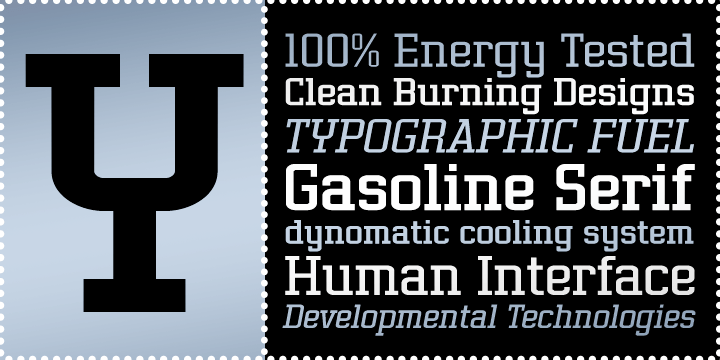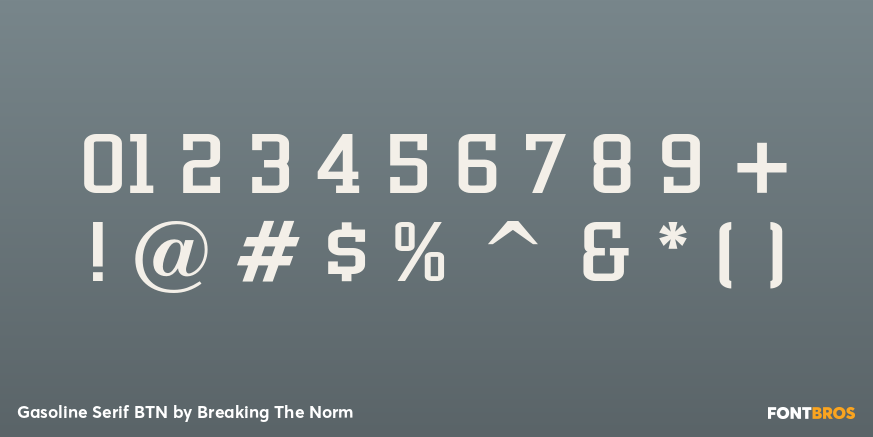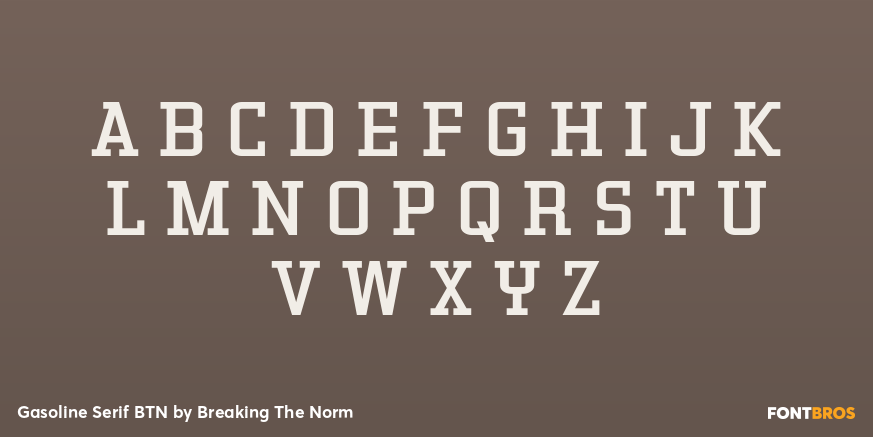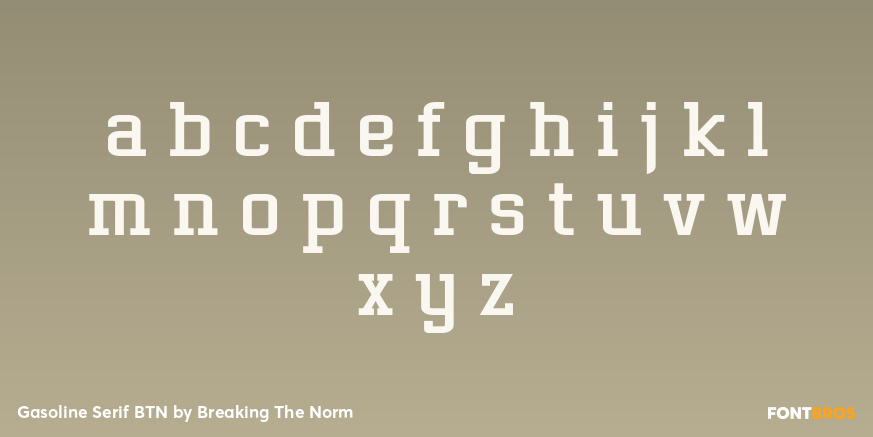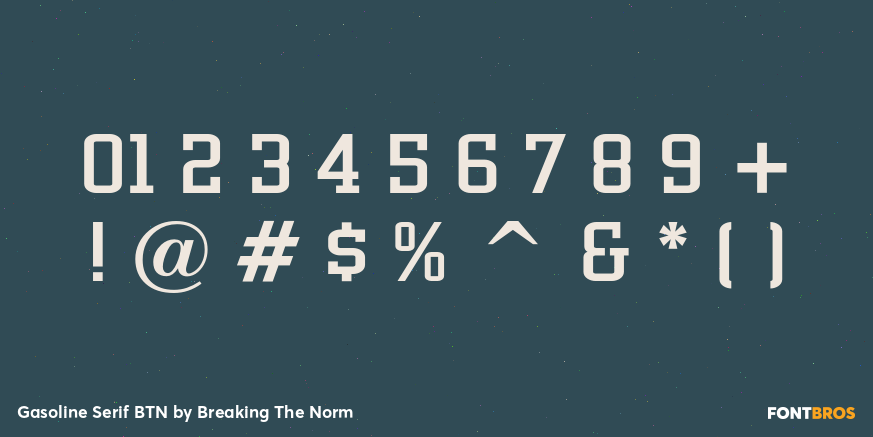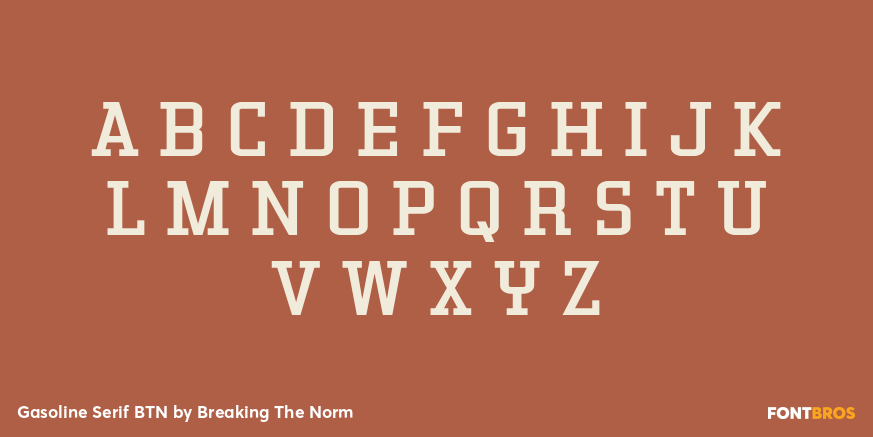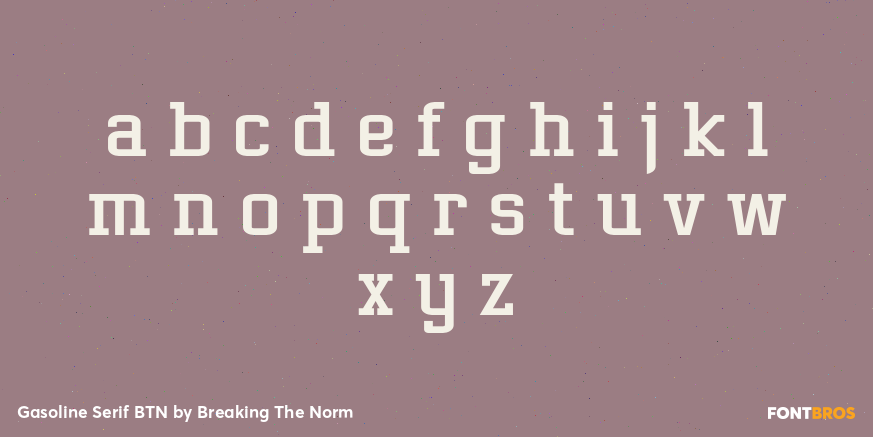
Gasoline Serif BTN
Font Family by Breaking The Norm
Gasoline Serif BTN is a clean geometric serif family designed with simplicity, clarity, and modern legibility in mind. Inspired by pure geometric letterforms, it brings a straightforward and dependable voice with a subtle touch of personality. Its crisp structure makes it well suited for branding, editorial design, packaging, publishing, advertising, signage, and business communication where a refined contemporary serif is needed. With Light, Regular, Bold, and matching oblique styles, Gasoline Serif BTN offers a flexible typographic range for polished layouts that need both structure and approachability.